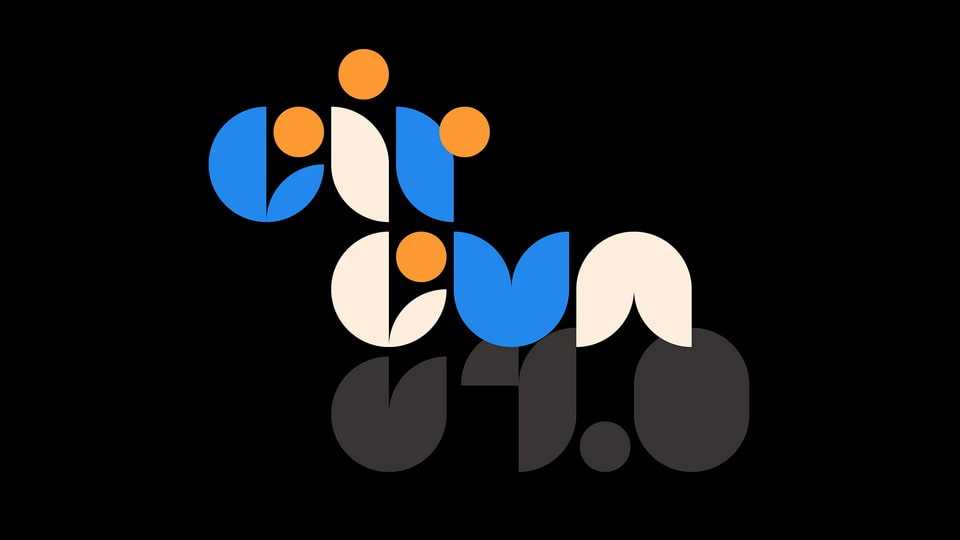
Download Circun font, a cutting-edge modular geometric display typeface that redefines the boundaries of contemporary design. Circun font is crafted with precision, utilizing a modular structure to create a visual language that is both bold and sophisticated.
Designer: Caê Penna